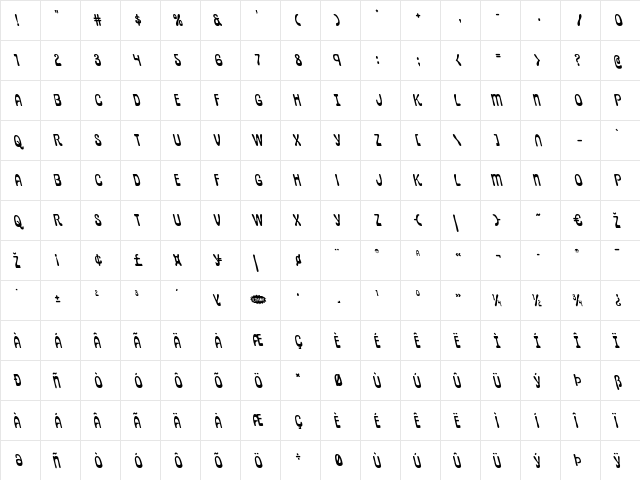
Pepperland Leftalic Italic
Design Context for Pepperland Leftalic Typeface
Pepperland Leftalic takes a measured approach to typography — its balanced proportions and neutral character make it a reliable workhorse for both digital and print work. Its italic angle brings a sense of urgency and motion to the letterforms.
Pro Tip: Use Pepperland Leftalic for emphasis, pull quotes, and subheadings where its slanted energy can add rhythm to the layout.